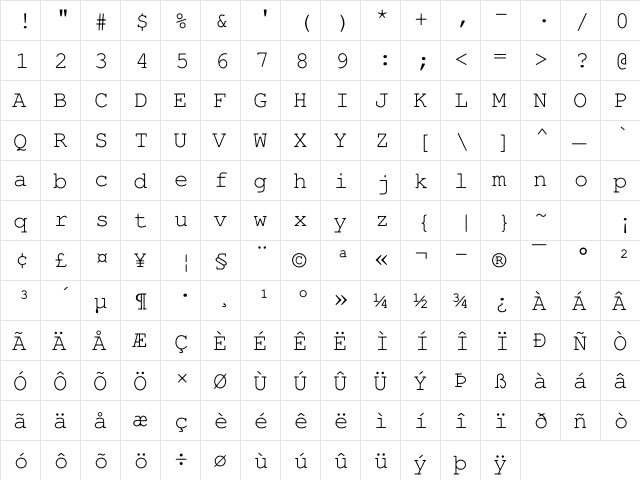
NimbusMonAntLReg Regular
Design Context for NimbusMonAntLReg Typeface
NimbusMonAntLReg offers clean, dependable letterforms without strong stylistic allegiance, making it a practical choice for designers who need flexibility.